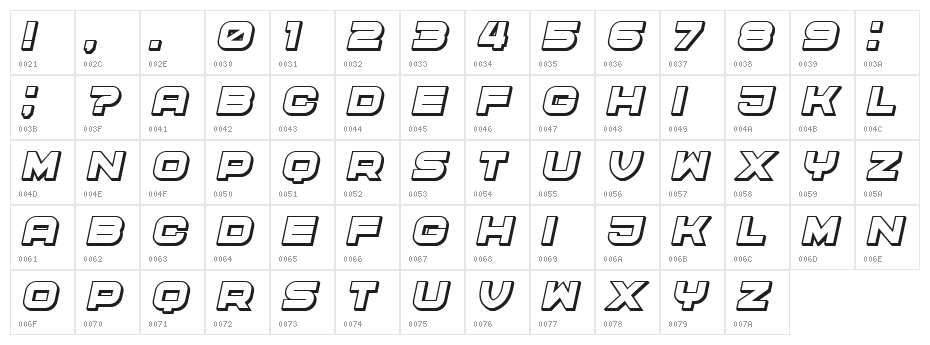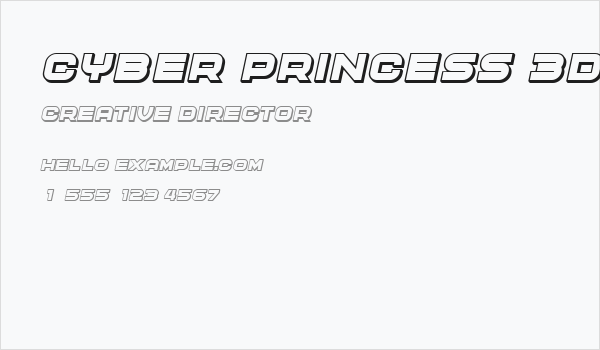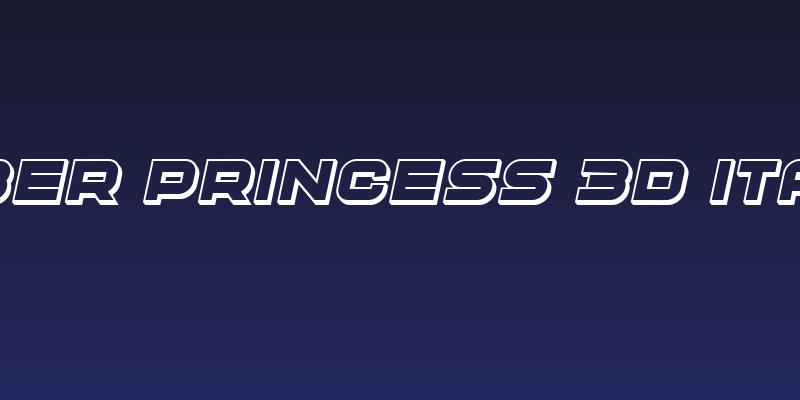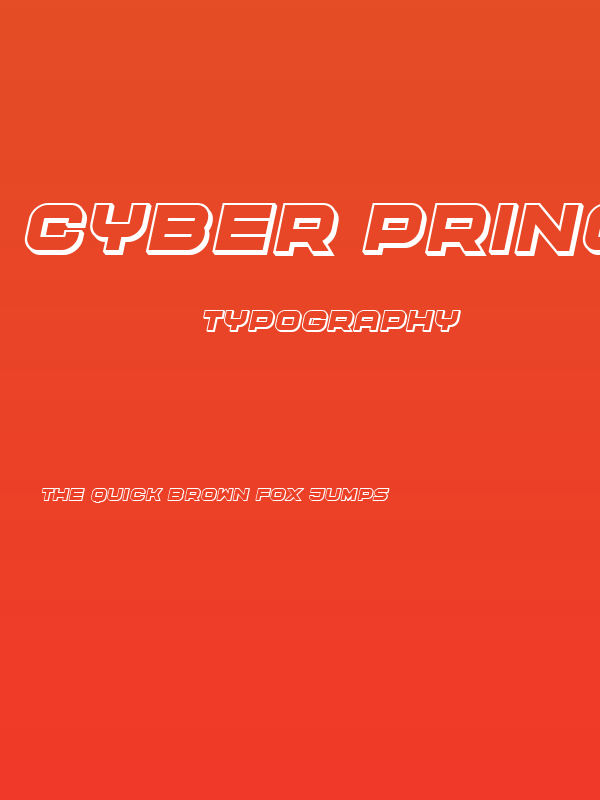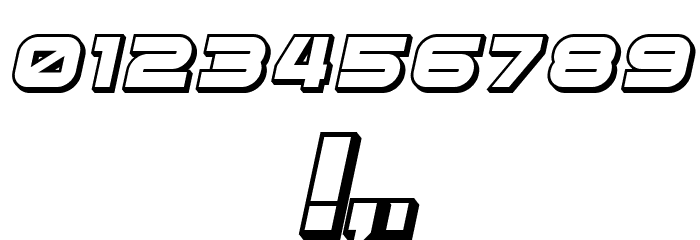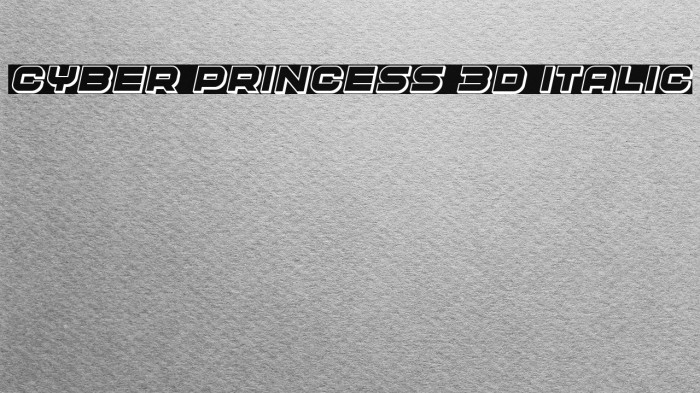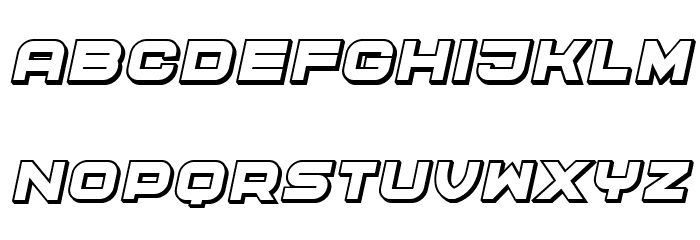
Cyber Princess 3D Italic Font
This font features a bold, futuristic design with a 3D effect that gives it a dynamic and modern appearance. The characters are outlined with a thick border, creating a sense of depth and dimension. The italicized style adds a sense of motion and speed, making it ideal for projects that require a cutting-edge, tech-inspired look. The uppercase letters are particularly striking, with angular lines and geometric shapes that enhance the overall aesthetic. The numbers and special characters maintain the same bold and dimensional style, ensuring consistency across all text elements.
| Proposed Projects | Ideal for tech-themed projects, video game titles, futuristic branding, and sci-fi movie posters. |